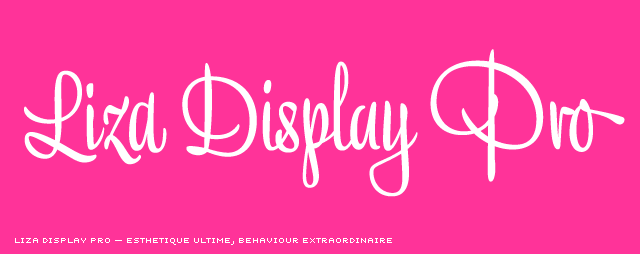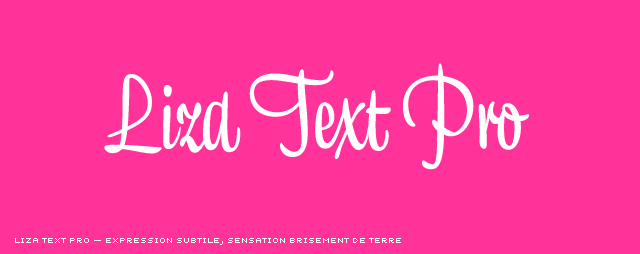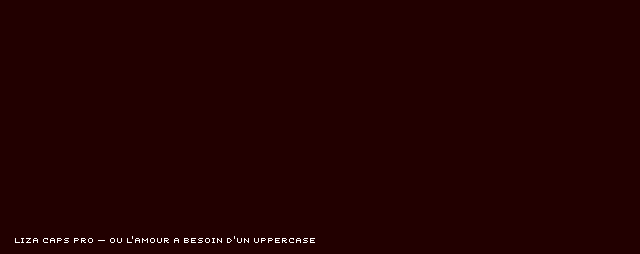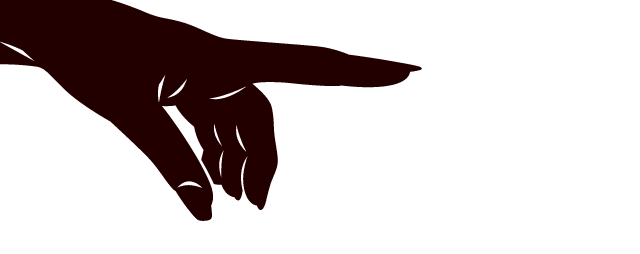
Liza Display
Playful & lovely. Érotique maximale. Liza Display Pro works best in short headlines, for just a couple of words which have to catch all attention. Advanced build-in features, like Out-of-ink, LetterSwapper and ProtoShaper, will let you create unique pieces of hand lettering. She’ll swash up your text drastically, giving long strokes to letters if their context allows. You’ll see long ascenders, long crossbars of a ‘t’, long loops of a ‘y’... et beaucoup d’autres caractéristiques.
Liza Text
Érotique non-stop: Liza Text Pro has a moderate character - she's designed to walk long pieces of text in a lively script style. Compared to Liza Display Pro this typeface is more subdued and silent, but still has lots of warm energy and subtle variations for each letter. Faites son visage rougissant avec cet oeil de font!
Liza Caps
Érotique professionnellement: Liza Caps Pro offer additional typographic possibilities to the script fonts. In case you need to set a word in capitals, use Liza Caps Pro. Every letter appears in various shapes to make your text look like it was painted by hand. But be aware: she’s equipped with a higher IQ than you would expect.
Liza Ornaments
Liza Ornaments Pro is for extra delicatesse et est plus charmant. Érotique spécialement. You thought you finished your wedding invitation? Don’t stop. Continue applying ornaments until you’re out of love. Repetitive ornaments, brush strokes, pointing hands, illustrative elements, wallpaper ornaments, classical fleurons, 3D-banderoles, arrows and leafs. Les ornements pour charmer votre amant!